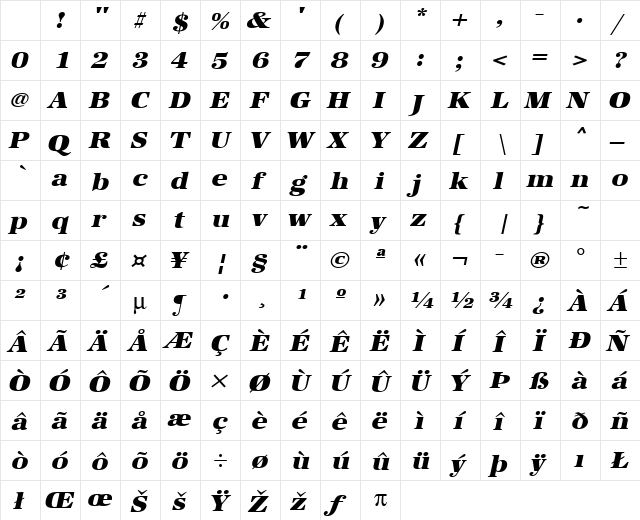
URWAntiquaTUltBolExtWid Oblique
URWAntiquaTUltBolExtWid Oblique Font Preview
URWAntiquaTUltBolExtWid Oblique Uppercase Preview
URWAntiquaTUltBolExtWid Oblique Lowercase Preview
URWAntiquaTUltBolExtWid Oblique Numeric Preview
URWAntiquaTUltBolExtWid Oblique Character Map
Complete URWAntiquaTUltBolExtWid Oblique glyph index. Displaying only characters natively supported by URWAntiquaTUltBolExtWid Oblique font.
URWAntiquaTUltBolExtWid Oblique Character Map
Design Context for URWAntiquaTUltBolExtWid
URWAntiquaTUltBolExtWid is a composed and adaptable typeface that performs quietly and consistently across a wide range of design contexts. The slanted form adds forward momentum and visual energy.
Pro Tip: Use URWAntiquaTUltBolExtWid for emphasis, pull quotes, and subheadings where its slanted energy can add rhythm to the layout.